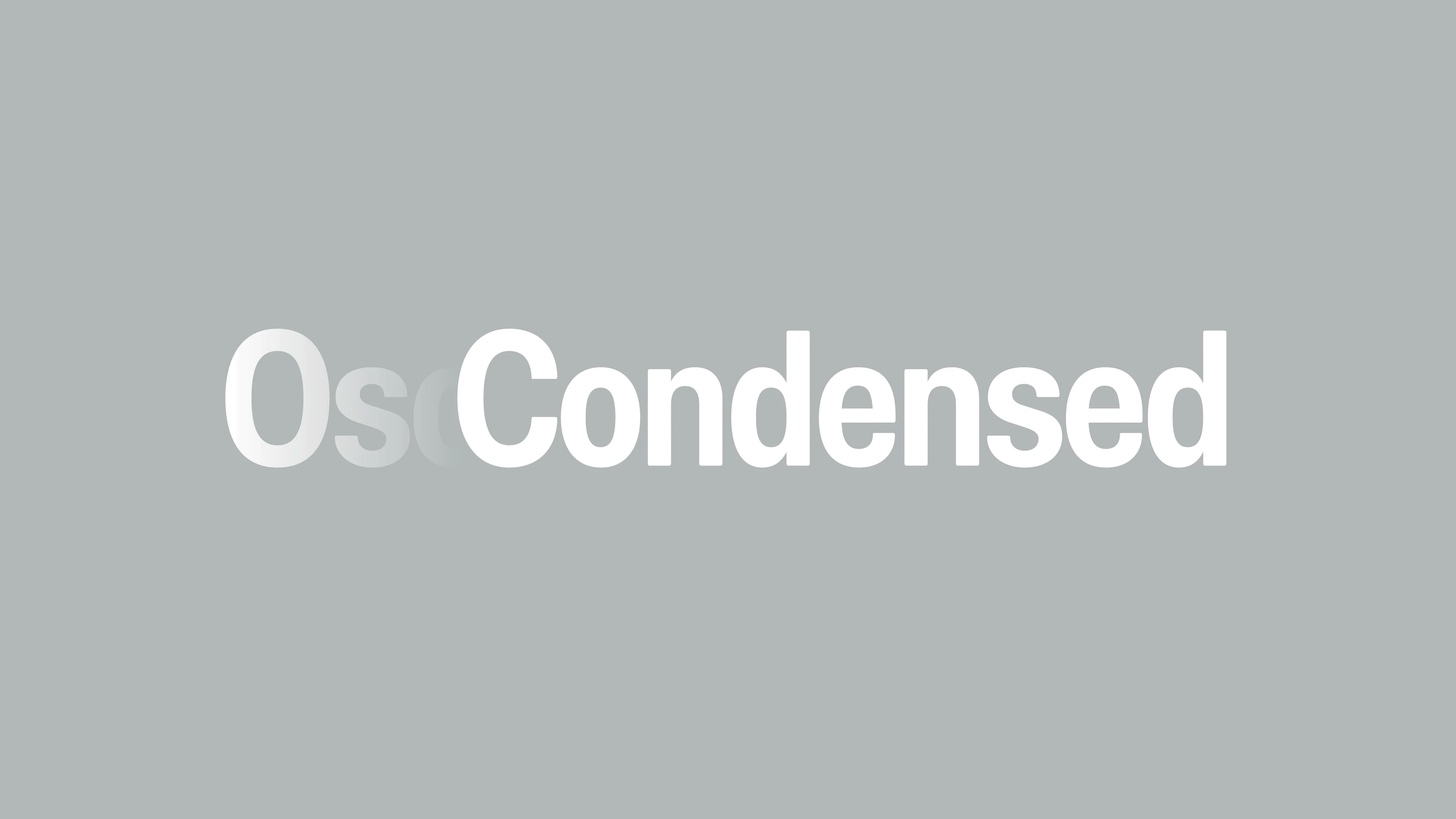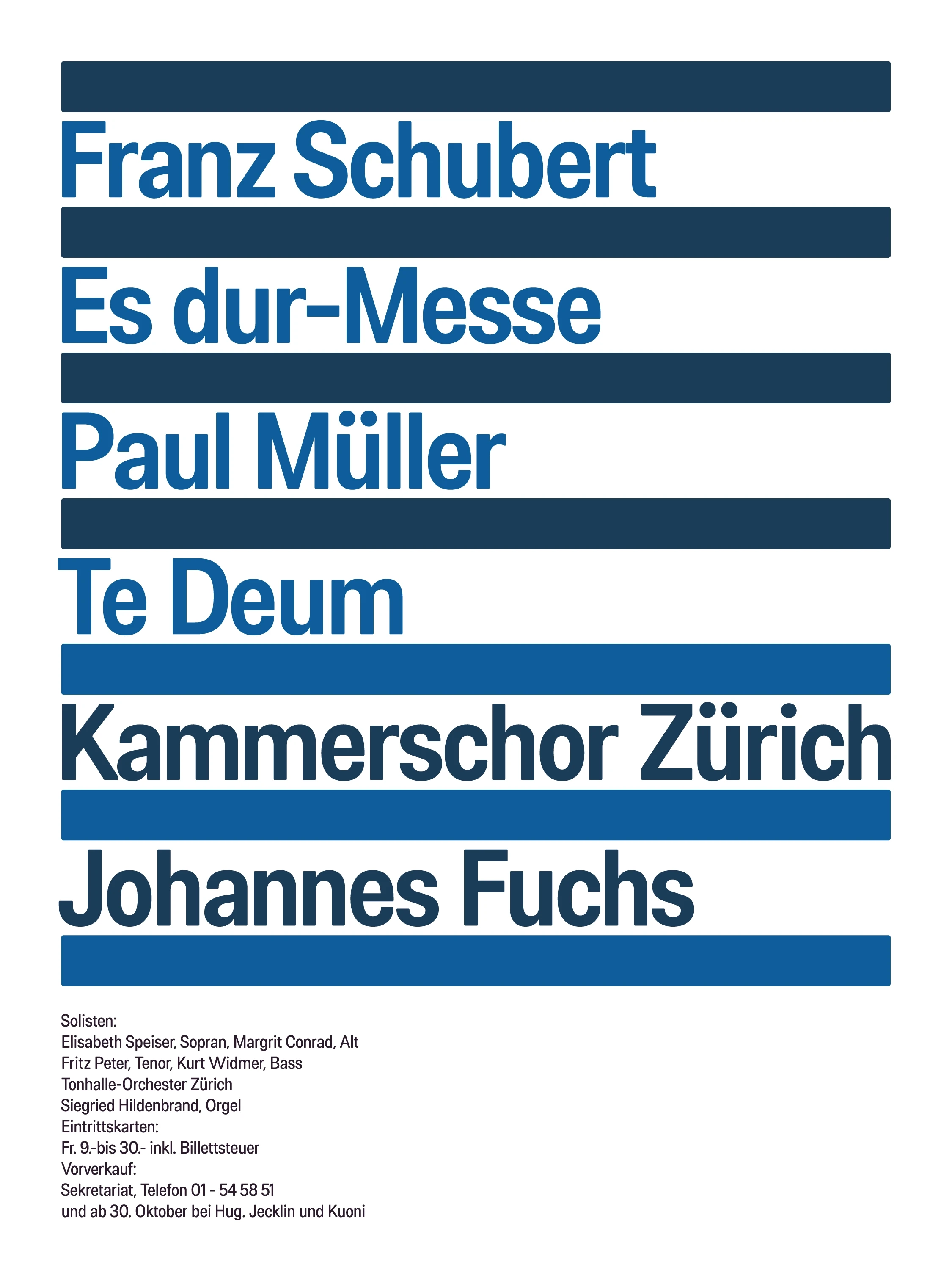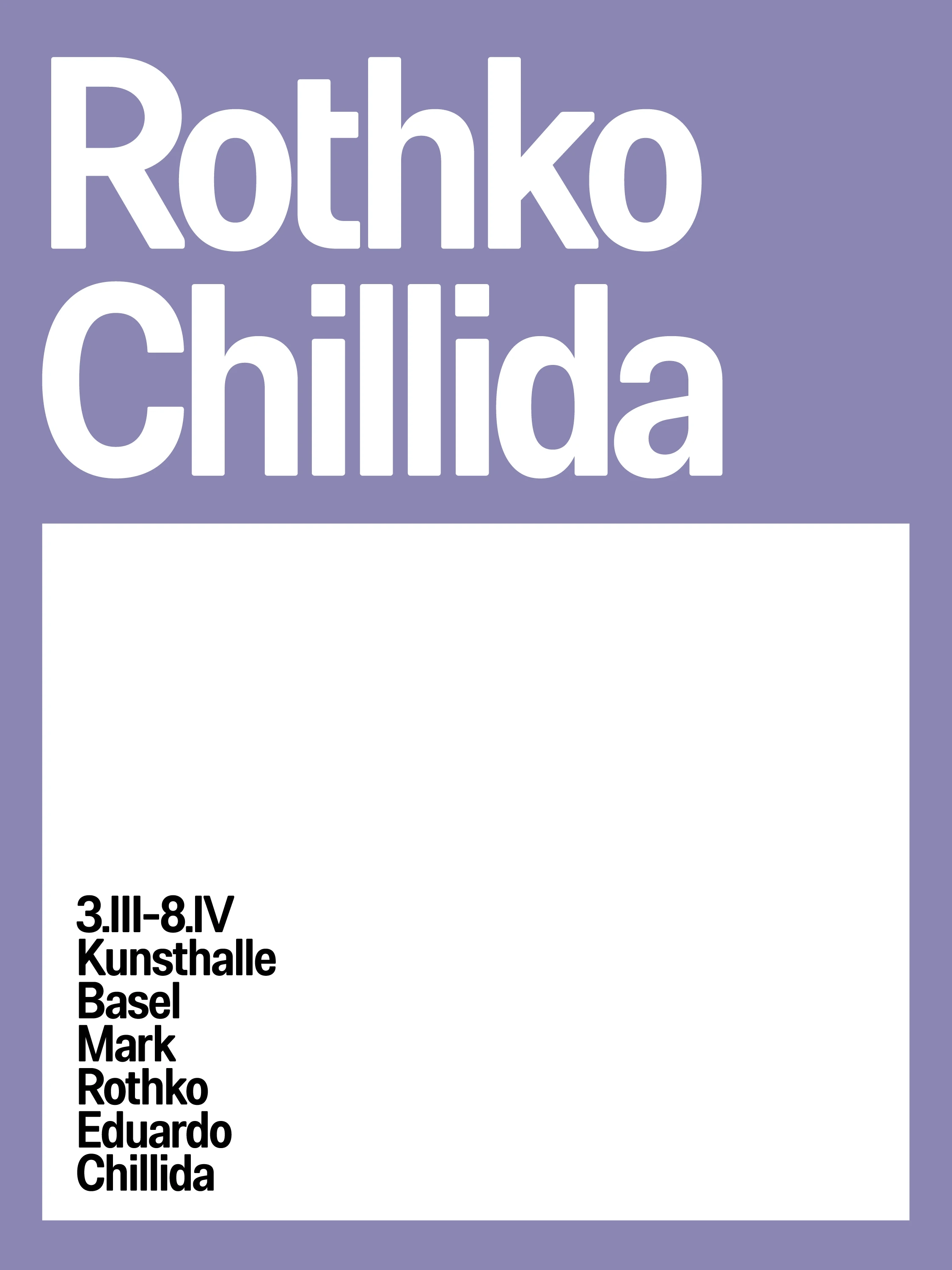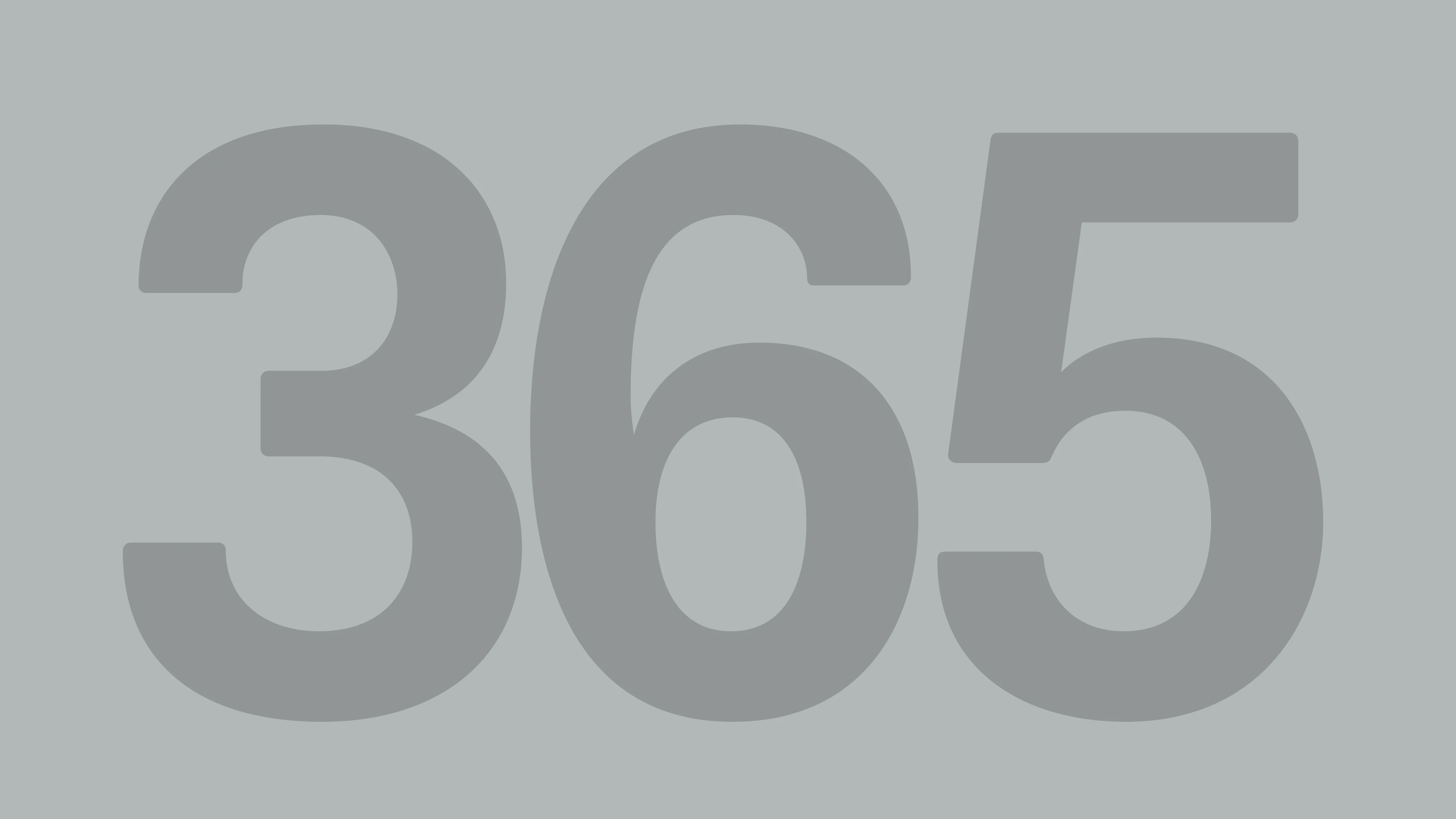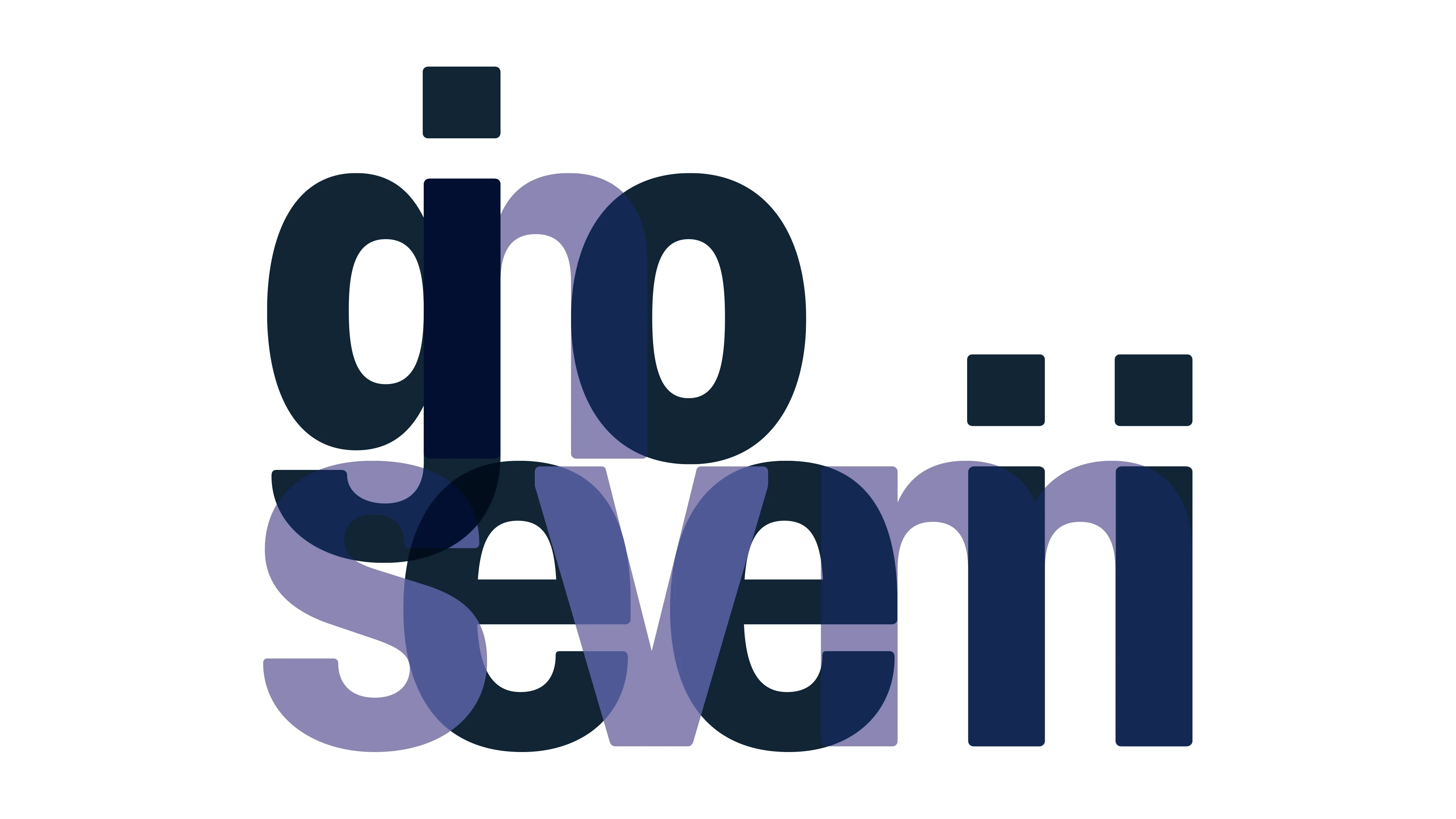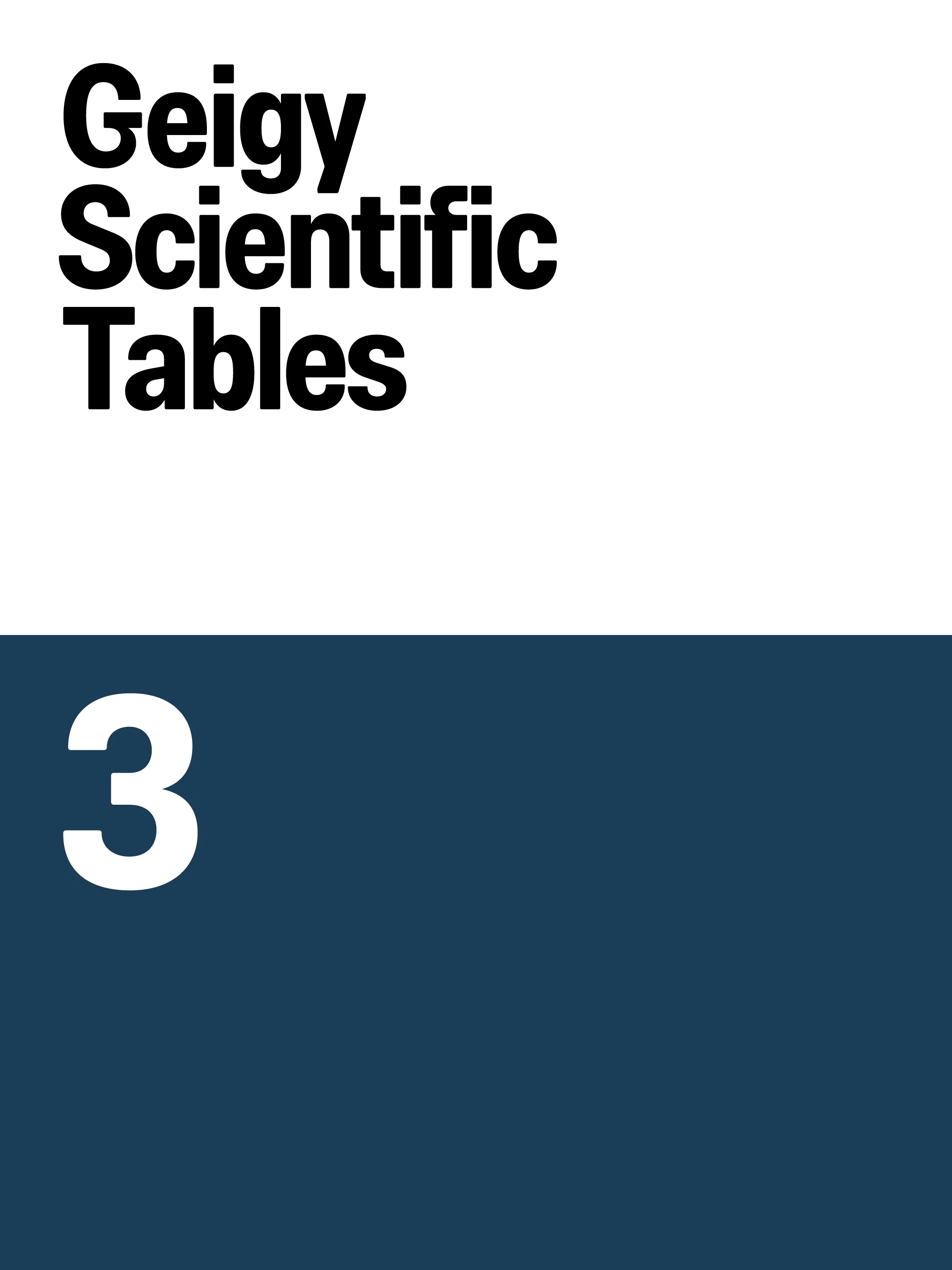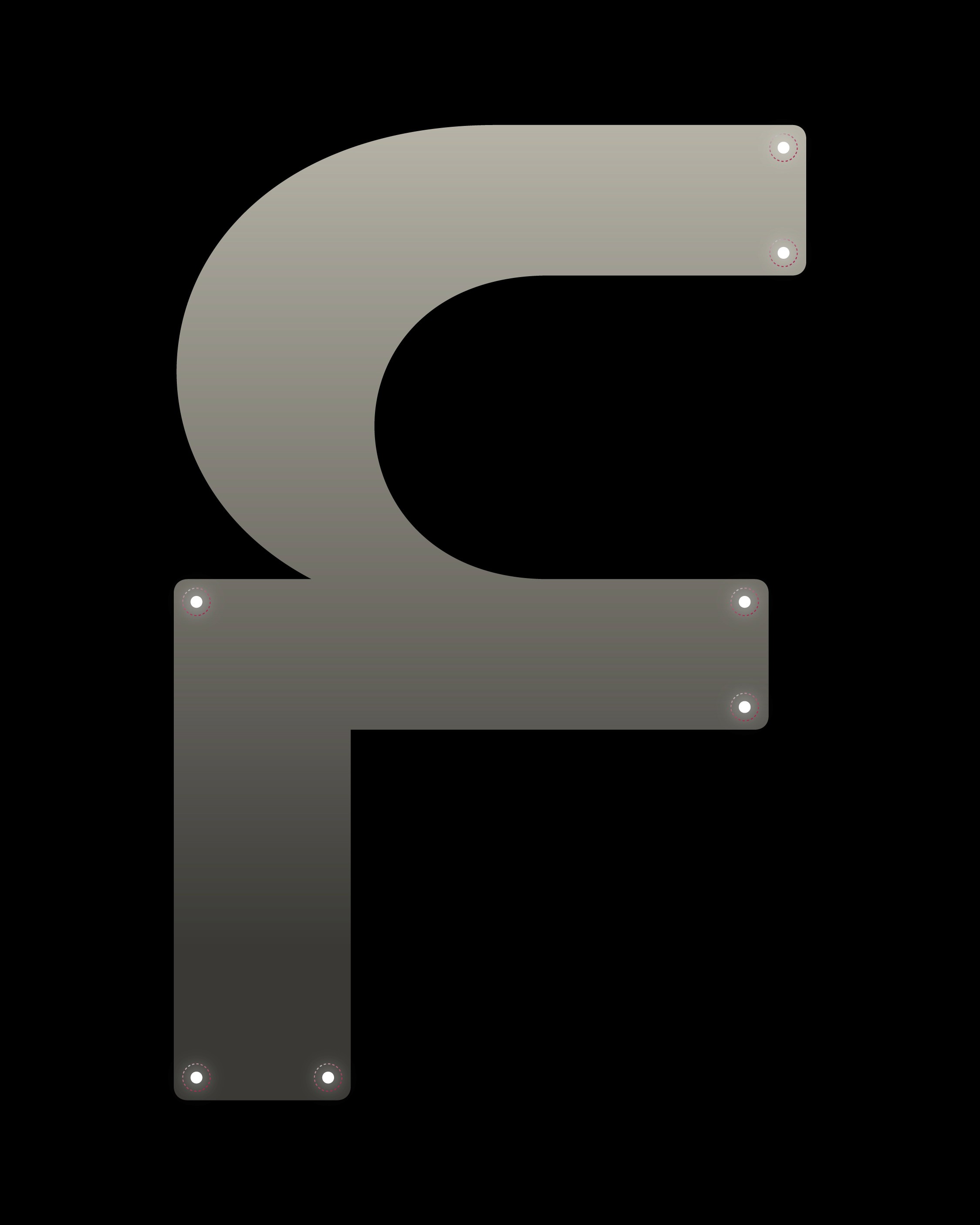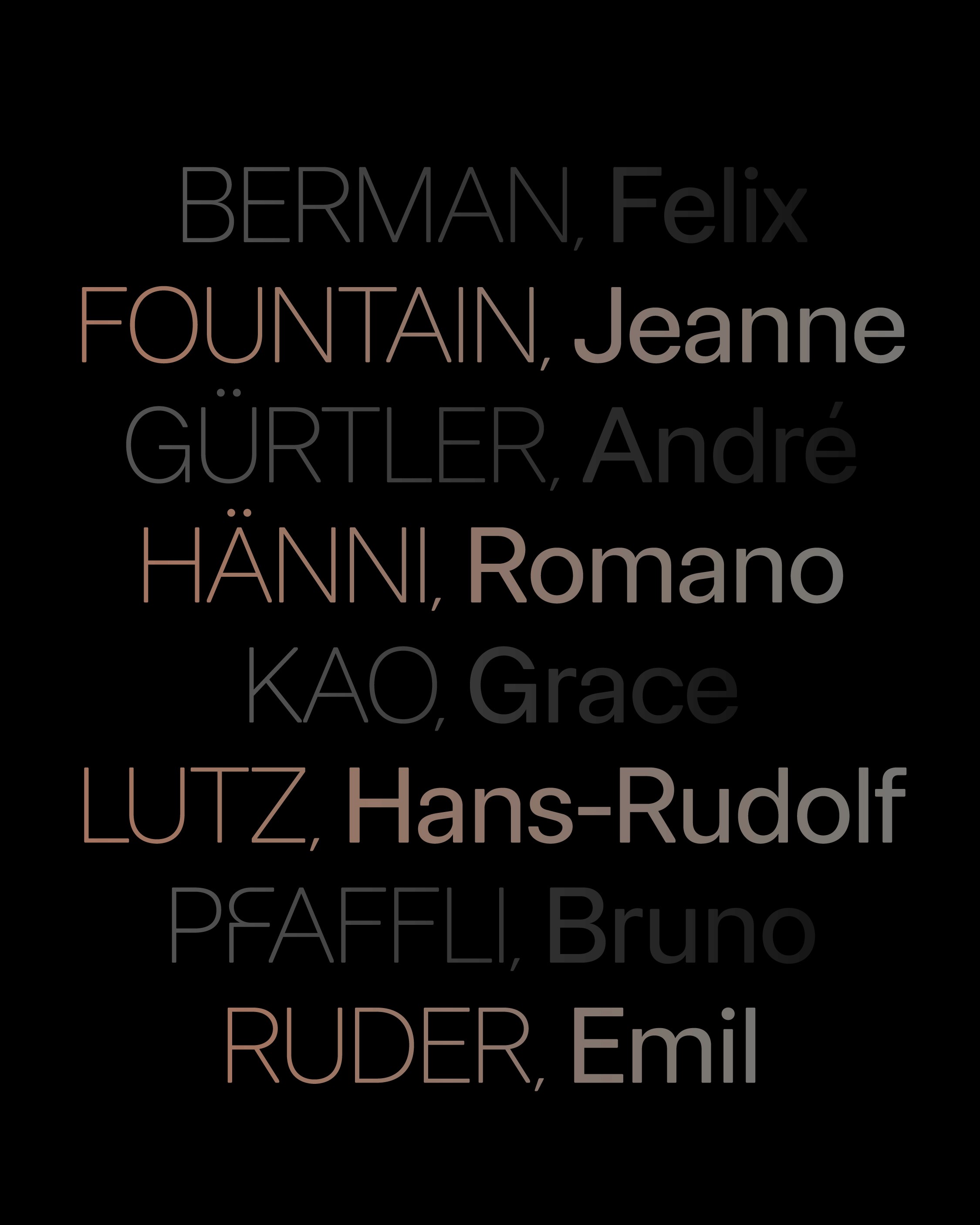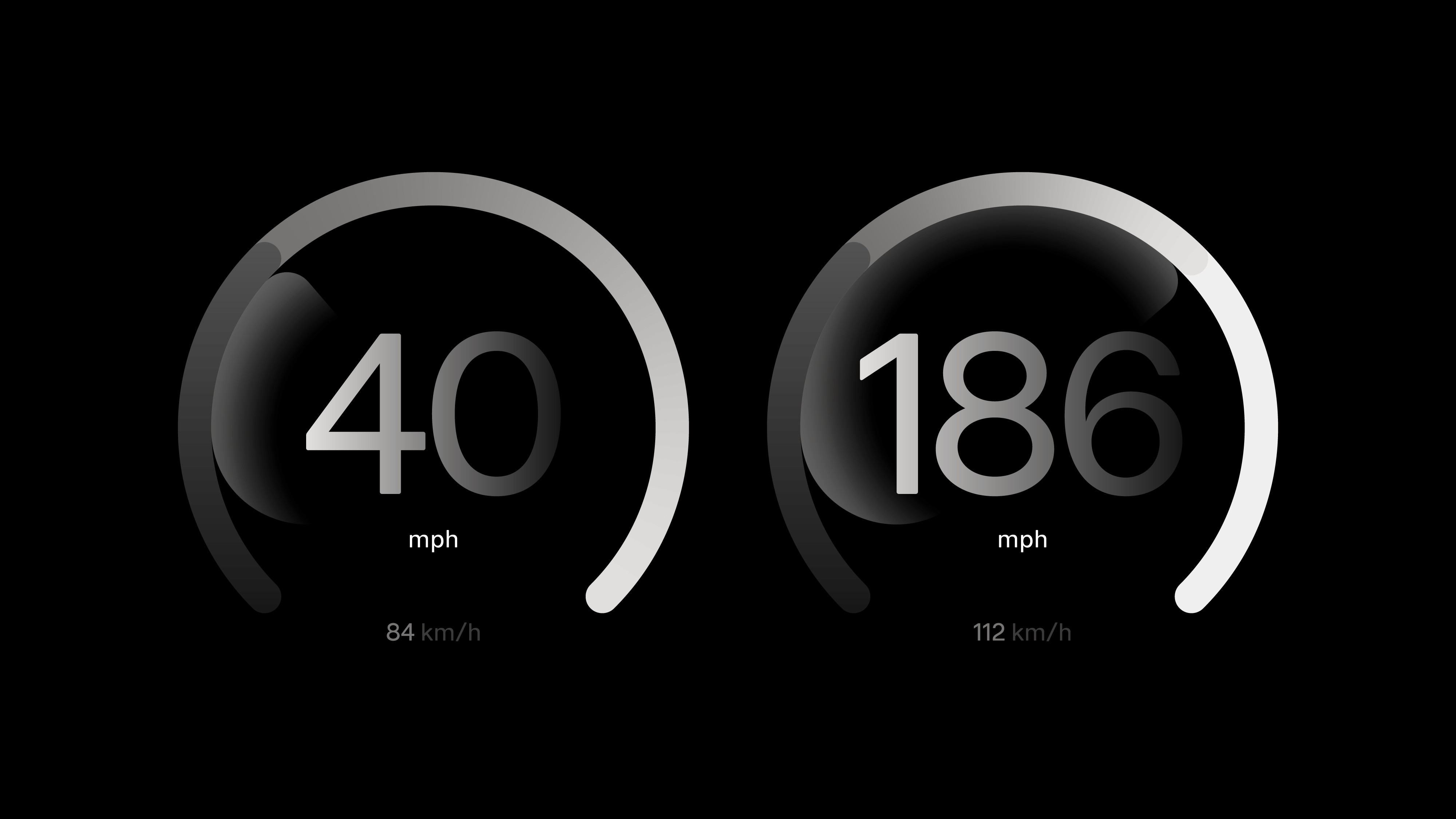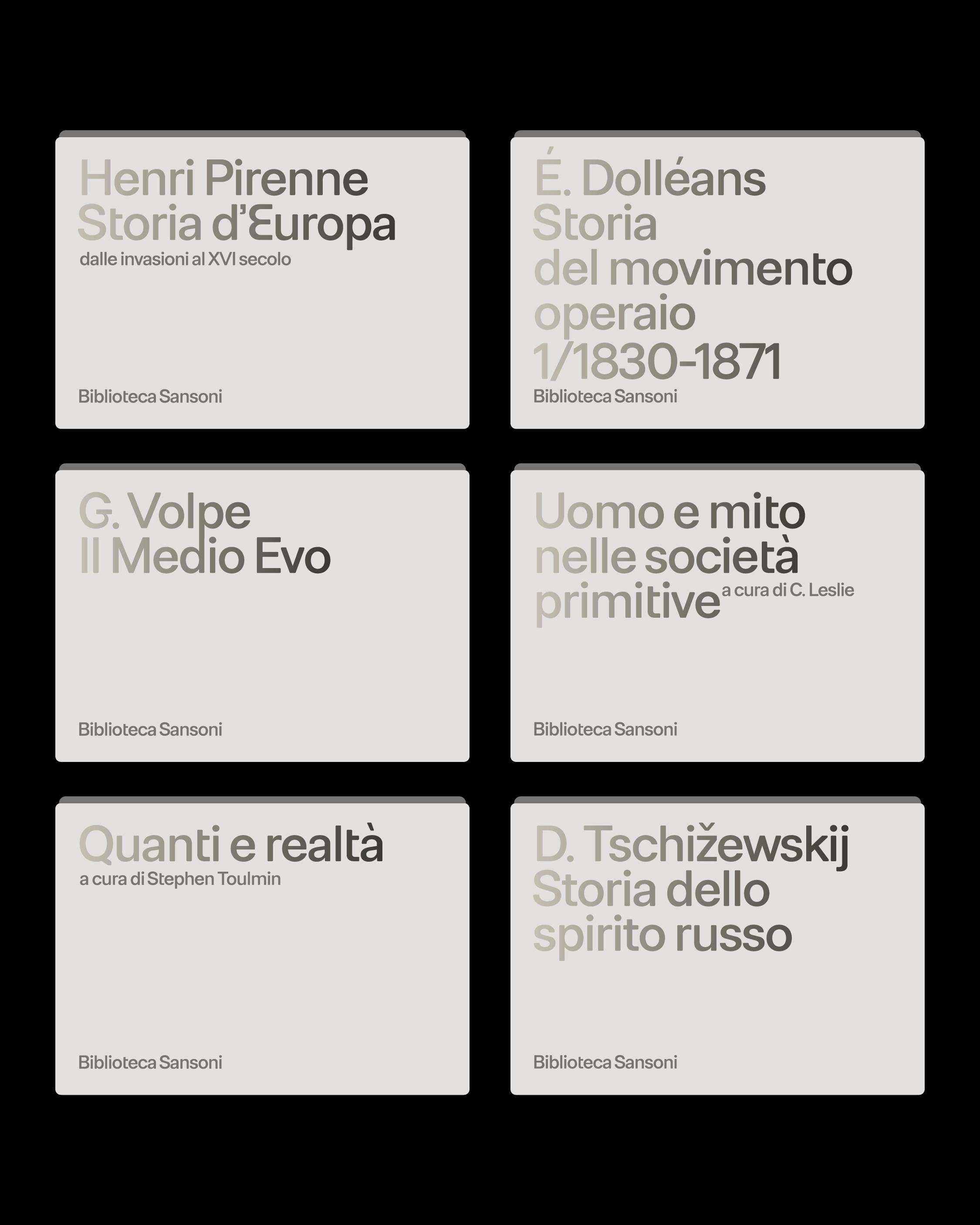
FH Oscar is a neo-grotesk with softened geometry. Built on the structural logic of early grotesques like Akzidenz and Breite Grotesk, it introduces rounded corners to reduce visual tension and enhance readability. Designed for versatility across screen and print, it includes Latin, Greek and Cyrillic support, along with stylistic alternates for editorial and interface use. FH Oscar balances typographic neutrality with a distinctly human touch.
Release date: 2020
Classification: Sans-serif / Neo-Grotesque